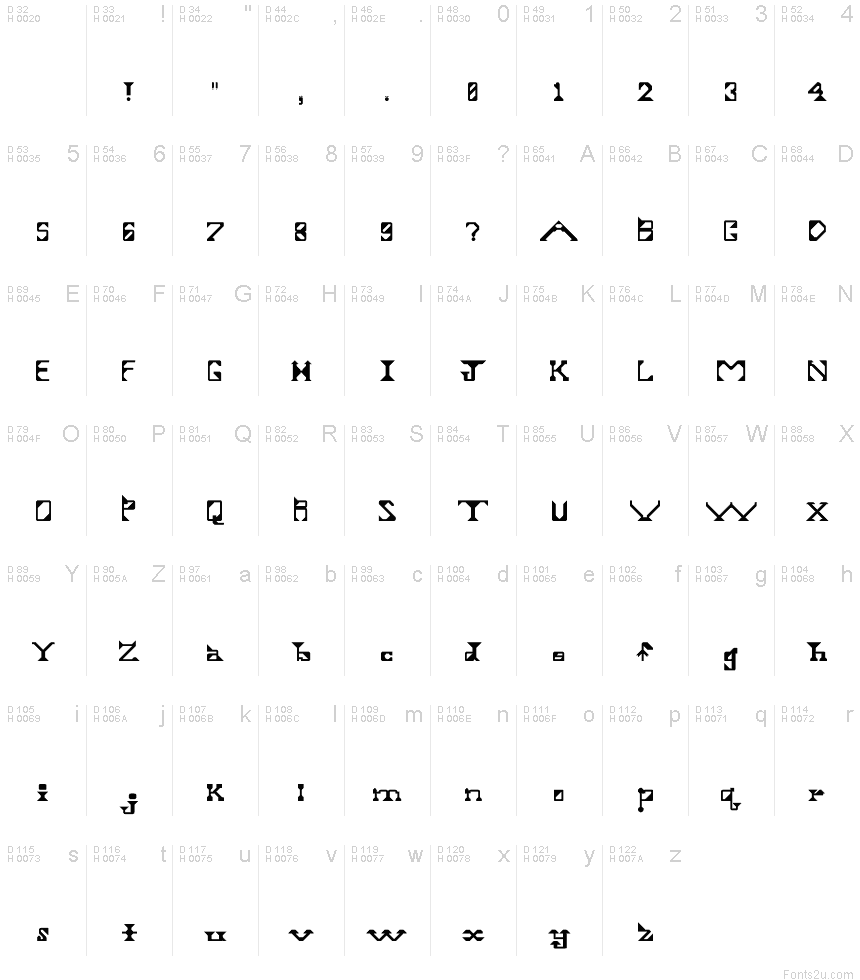
Derr, designed by Derek of FSI FontShop International GmbH, is a free futuristic display font built from broad geometric strokes clipped into angular shapes, with abrupt openings that interrupt their solid silhouettes. The letters look assembled from sharply cut mechanical panels.
Digital graphics are its clearest medium, especially for game interfaces, electronic music artwork, and science-fiction event posters whose subjects benefit from a structured, machine-cut style and a distinctly technological edge. The same panel-like forms can echo circuit paths, spacecraft plating, or angular icon systems in entertainment branding and merchandise, letting the lettering become part of the imagery rather than a neutral caption.